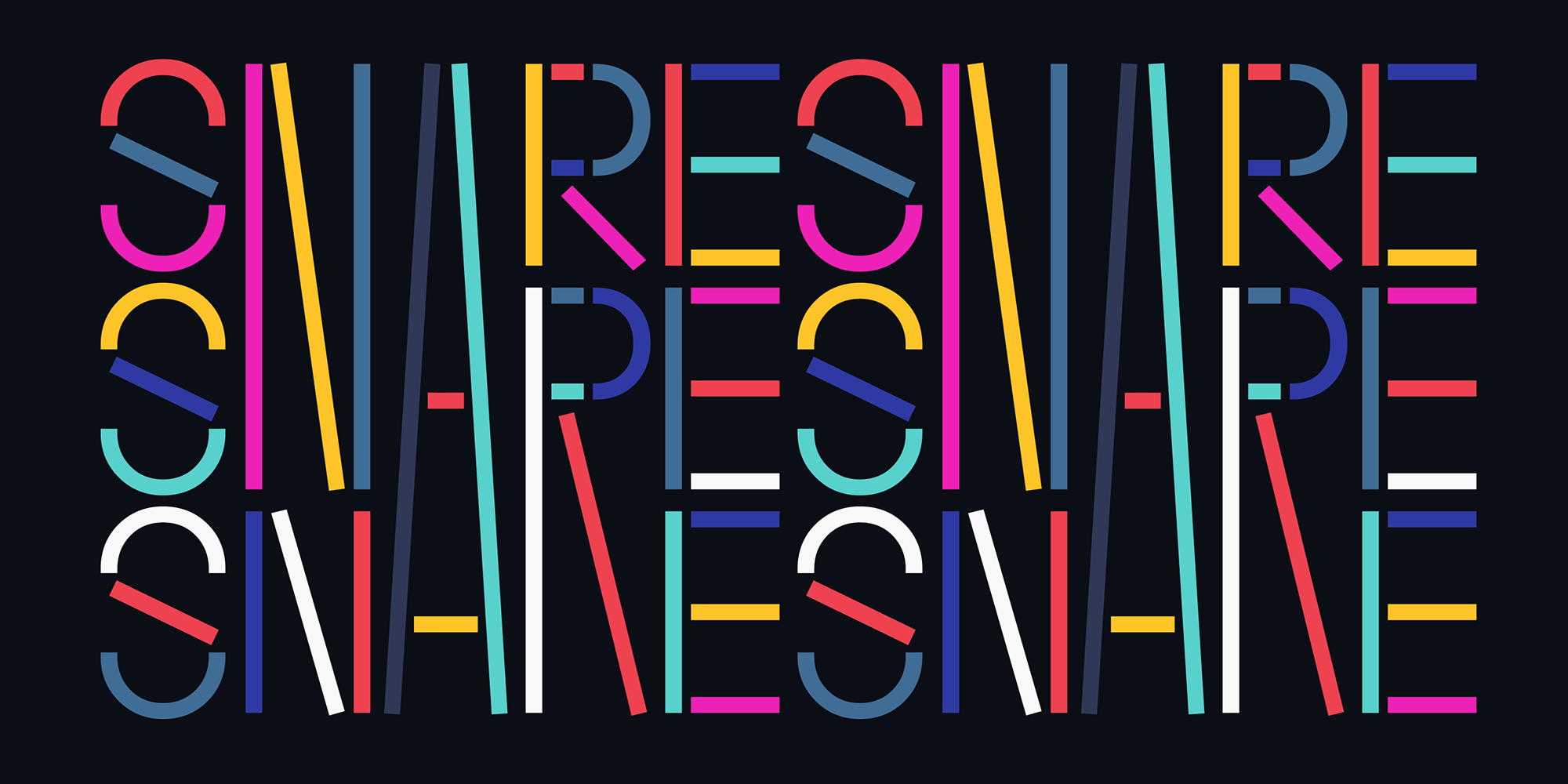
The Snare Font Free Download is a bold, modern display typeface perfect for music branding, sports logos, posters, urban fashion, and dynamic advertising campaigns. Its strong lines and sharp angles create a confident and impactful presence.
What makes the Snare Font so exciting is its ability to convey energy and power with a sleek, contemporary design. This font stands out with its bold personality, making any project feel vibrant and memorable.
The Snare Font family includes Regular and Bold styles, providing designers with the versatility to create striking typographic compositions.